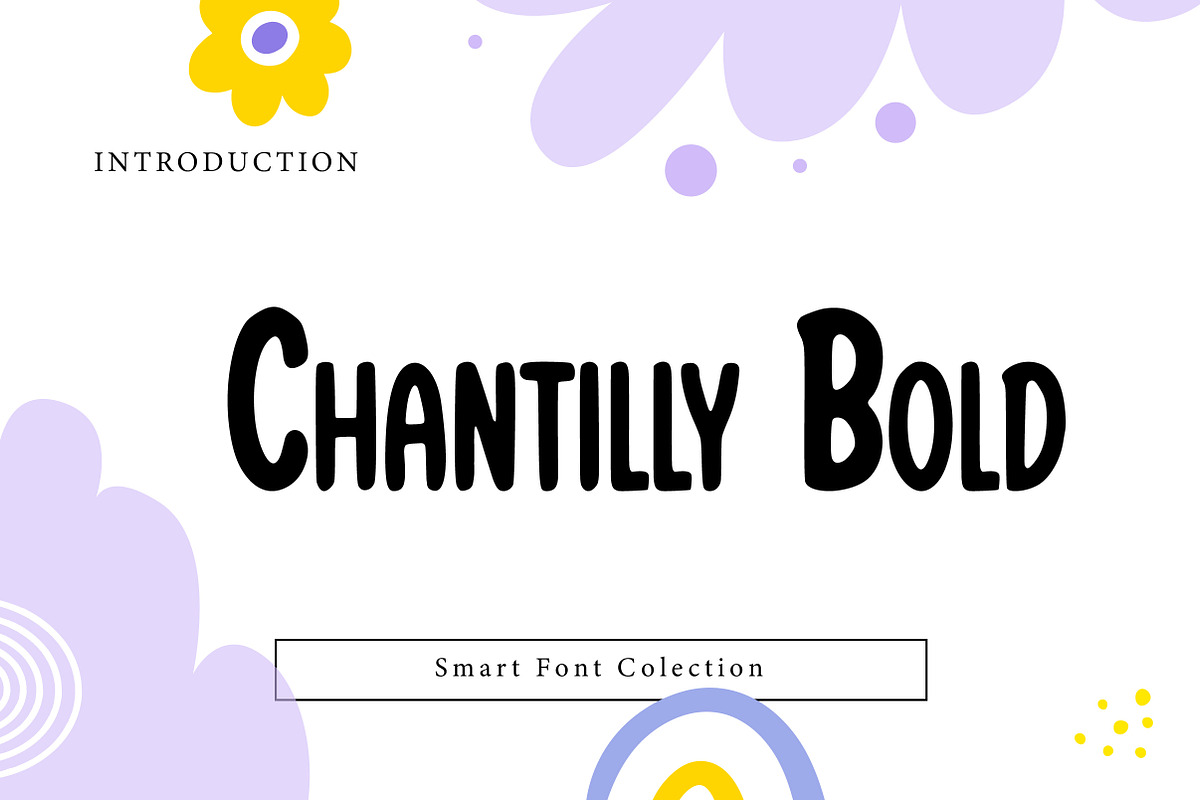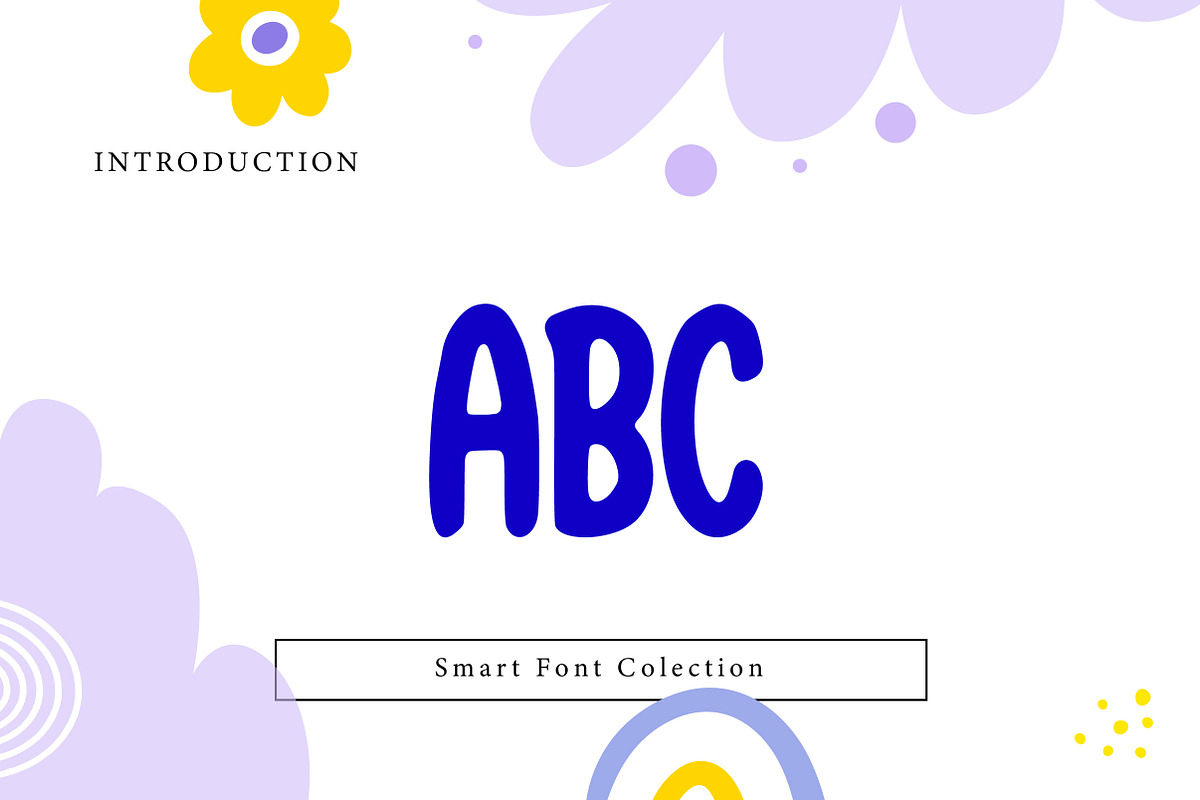
Chantilly Bold
Chantilly Bold is a playful and bold handwritten display font with soft curves and a friendly, charming personality. Designed to feel fun, casual, and approachable, this font is perfect for logos, posters, branding, packaging, stickers, kids projects, social media graphics, and creative headlines. Chantilly Bold delivers strong readability with a sweet handcrafted vibe, making it ideal for modern fun branding, cute typography, and cheerful design projects.